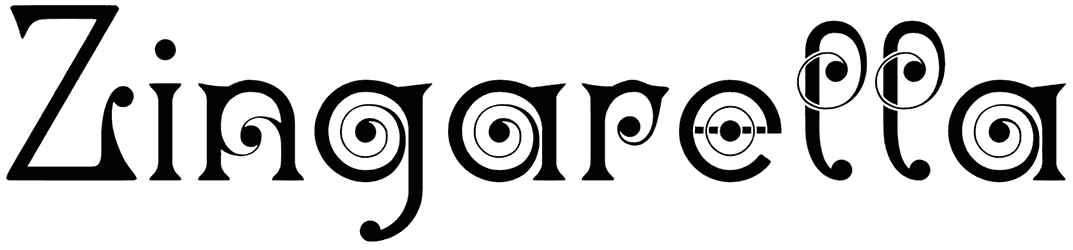
Zingarella Font
Designed byYves Michel
Mold a magical context cum a lot of coils and surprise your viewers with Zingarella. This decorative font has a lovely look on letters with delicate adornment details. As a whimsical font, use Zingarella to perfect your coming design, such as book posters, covers, backgrounds, mugs, or anything else, and have a hermetic time.
Zingarella est un revival d’une fonte en capitales trouvée dans Typonamenty (3e édition) de Milan Kopřiva. Publié par PLUTO Prague Publishers, 1991.
Digitalisé par moi. Minuscules et autres glyphes créées par moi.
Zingarella is a revival of a Caps only font found in Typornamenty (3d edition) from Milan Kopřiva.
Published by PLUTO Prague Publishers, 1991.
Digitalisation by Yves Michel.